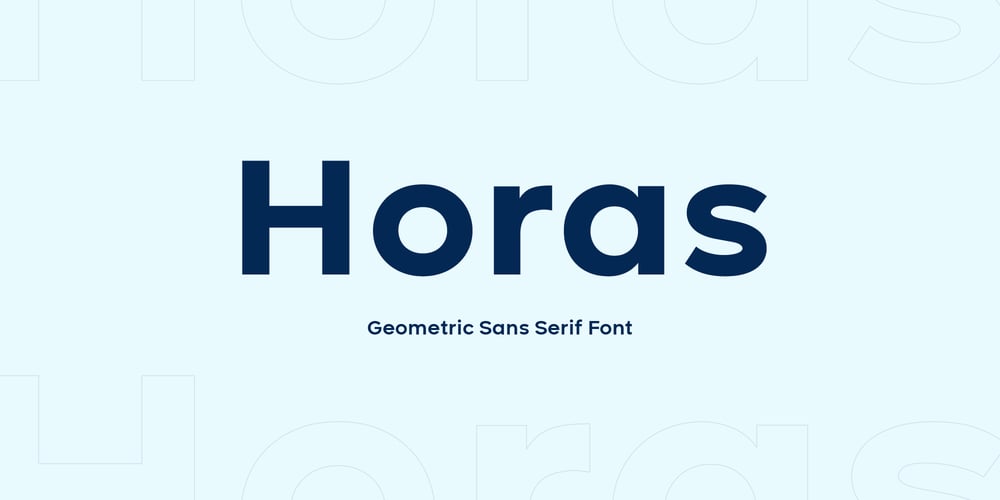
Horas
Horas Font Family was designed by abdul artega and published by Yukita Creative. Horas contains 5 styles and family package options. Horas Sans Serif Geometric is a stunning and modern font, designed with a touch of minimalism and attractive geometrics. This font combines the beauty of serif-free design with the boldness of geometric shapes, creating a fresh, clean look for a variety of design projects.